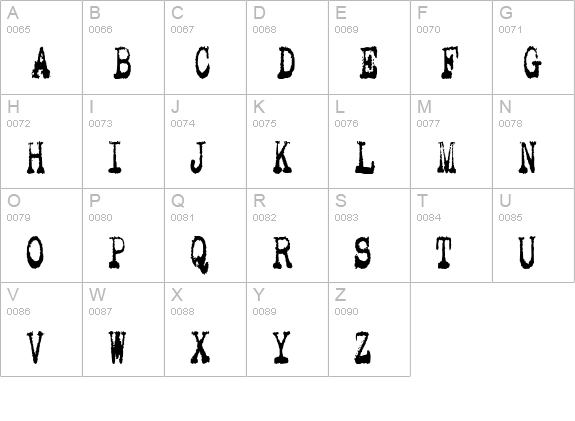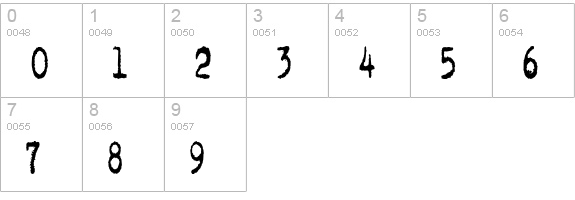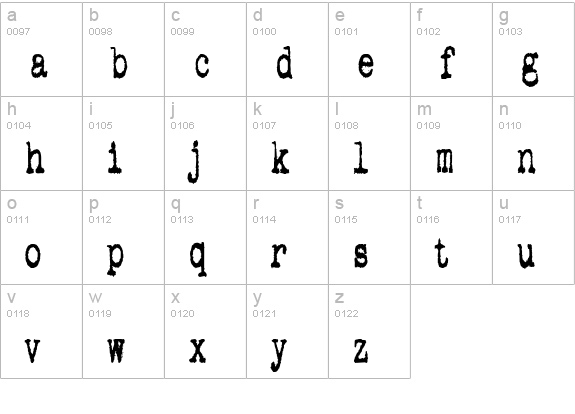
pookie stretch Font Details
Pookie Stretch font is a whimsical and playful typeface that exudes charm and creativity. Its unique design features elongated and quirky letters that add a touch of fun to any project. Perfect for adding a touch of whimsy to invitations, posters, and social media graphics, Pookie Stretch font is sure to make your designs stand out. The best part? Pookie Stretch font is available for free download at FontsMarket.com. Simply head over to the website to get your hands on this delightful font and start incorporating its playful vibe into your creative projects today. Whether you're working on a personal project or a client commission, Pookie Stretch font is a fantastic choice for adding a touch of personality and charm to your designs. Download it now and let your creativity soar!